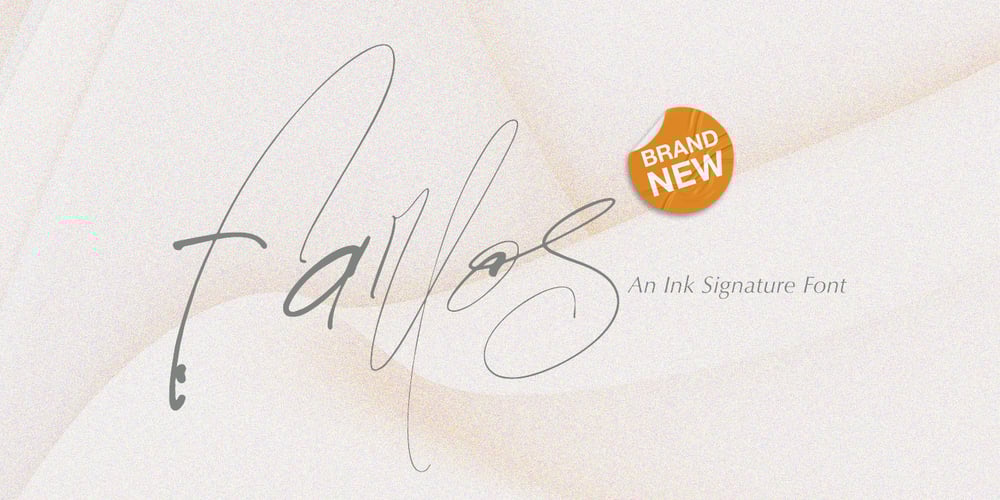
Farlos Font Family was designed by Mira Kartika Sari and published by Papermode Co. Farlos contains 1 styles and family package options. Farlos is a ink handwritten font, with a unique feel and a stunning impact. It will add a luxury spark to any design project that you wish to create! This font is PUA encoded which means you can access all of the amazing glyphs and ligatures with ease!Try Farlos, enjoy the richness of OpenType features and let her fun and elegant excitement make you happy and enhance your creativity! You can use this font very easily.Included multiligual support and special ligatures